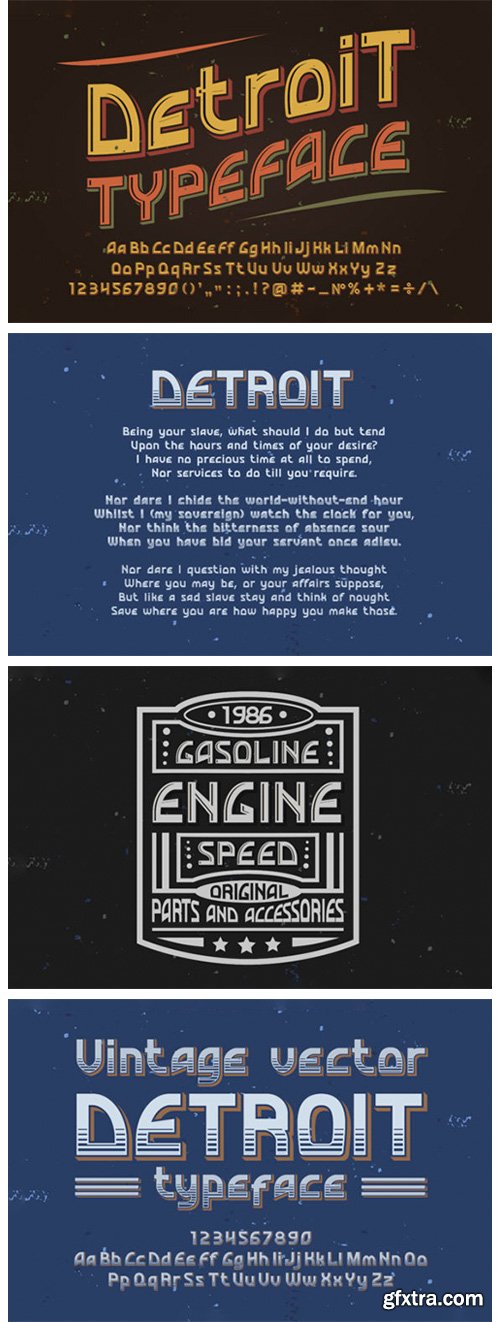
Detroit Font
Detroit is a bold, imposing and vintage styled display font. Add it to each of your posters, titles or headlines, and notice how your creations will look outstanding.